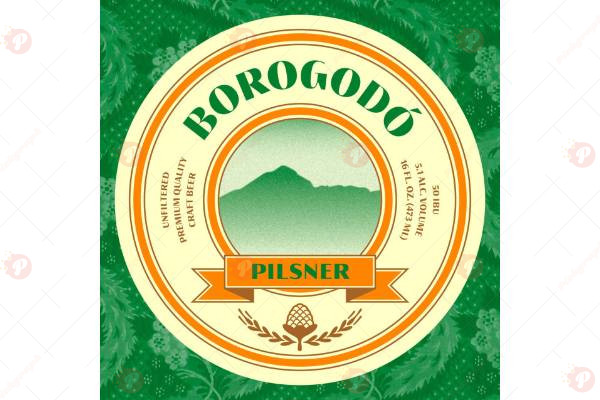
The Borogodó Font Free is a playful handwritten typeface that adds a touch of fun, creativity, and personality to your designs. With its casual strokes and friendly style, it’s perfect for branding, posters, invitations, social media posts, packaging, and creative artwork.
This font brings a warm and approachable vibe, making it suitable for handmade product labels, lifestyle brands, quotes, logos, and creative digital designs. Whether you want to design something cute, trendy, or artistic, Borogodó Font Free will give your project a fresh and personal look.
Typeface: Handwritten / Display / Playful
Style: Casual / Friendly / Creative / Fun
Perfect for: Posters, Invitations, Quotes, Branding, Packaging, Social Media, Digital Art
Bring personality and charm to your designs with the Borogodó Font Free.